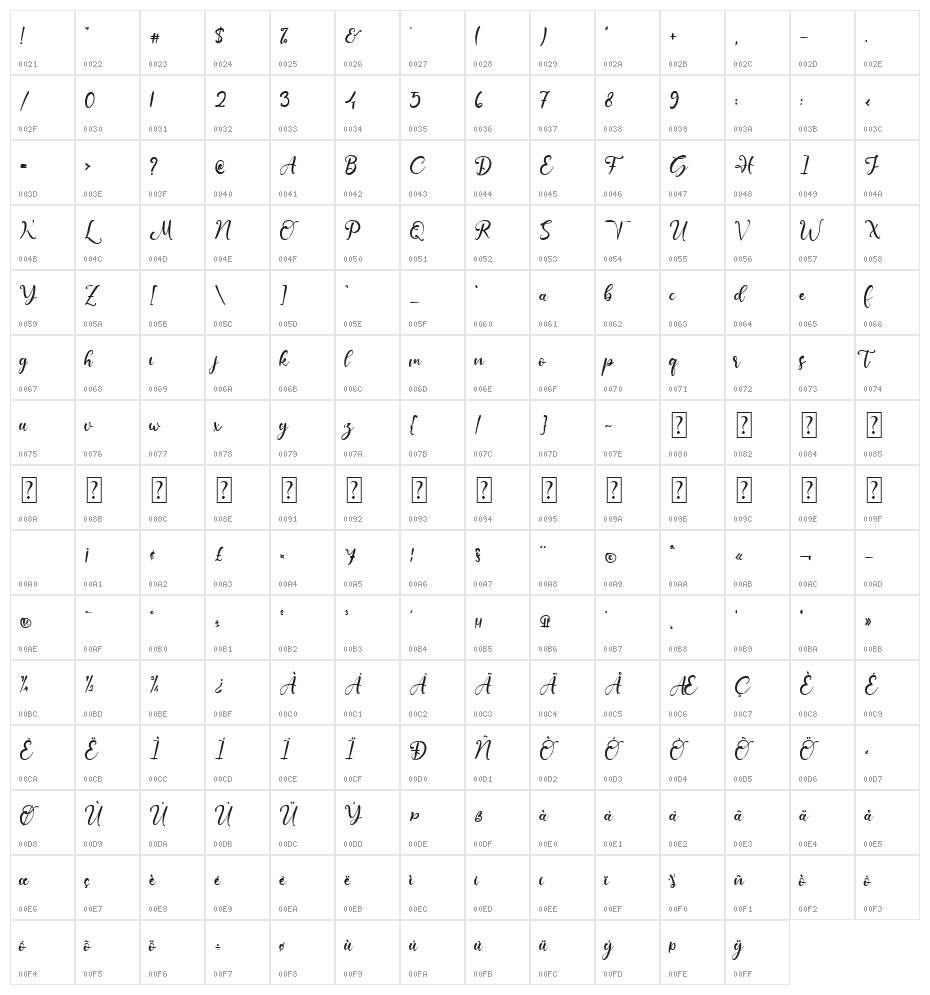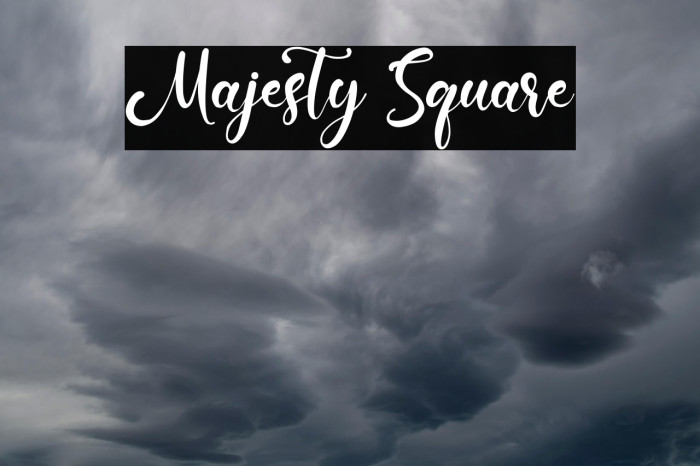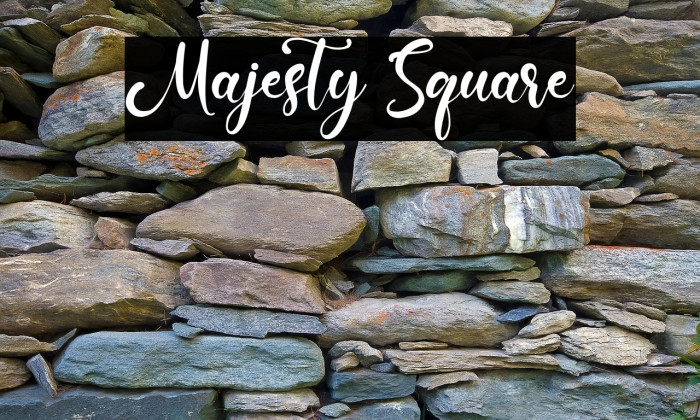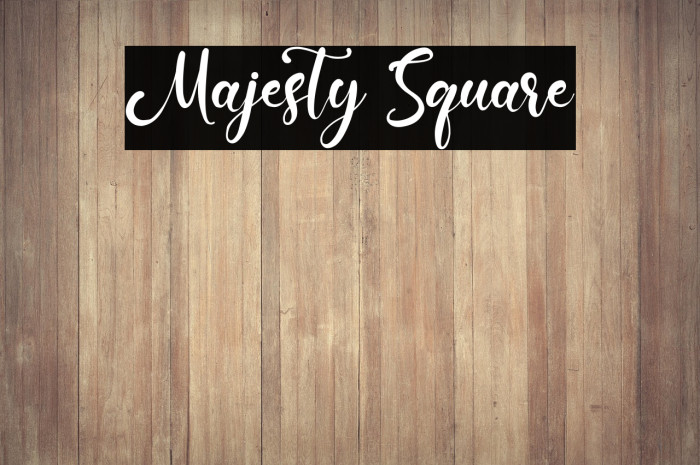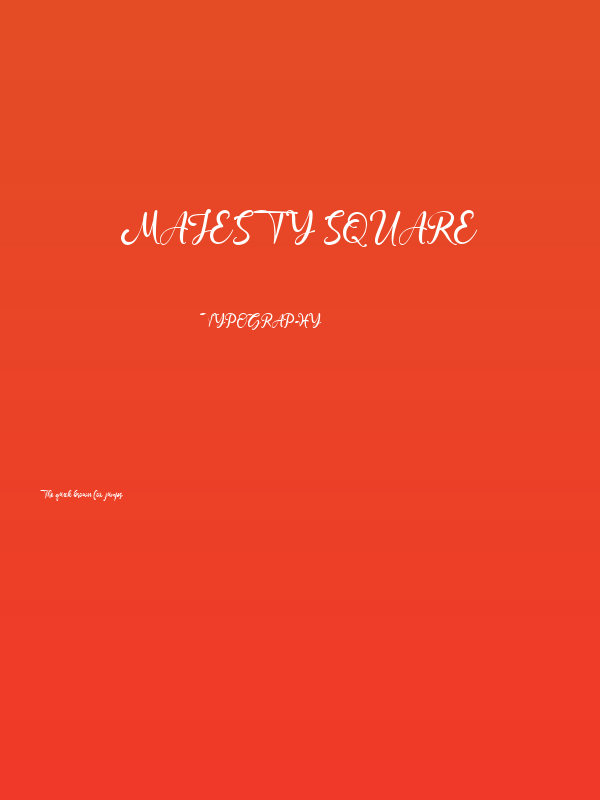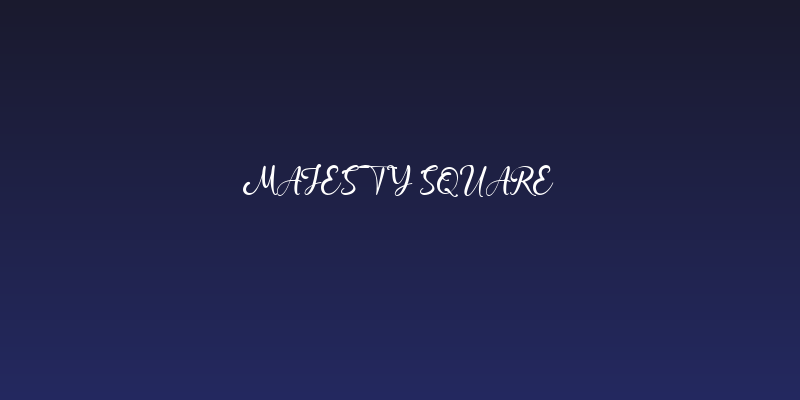
Majesty Square Font
Majesty Square Description
This elegant script font features a flowing, cursive style with a sophisticated flair. The uppercase letters are characterized by sweeping loops and flourishes, giving them a sense of movement and grace. The lowercase letters maintain a consistent style, with smooth, connected strokes that enhance readability while retaining an artistic touch. The numerals are designed to match the overall aesthetic, with subtle curves and a balanced appearance. Special characters are thoughtfully integrated, maintaining the font's cohesive look. This font is ideal for projects that require a touch of elegance and sophistication, such as wedding invitations, branding, and high-end product packaging.
| Overall Style | Elegant, Sophisticated |
| Use Case | Headlines, Invitations, Branding |
| Proposed Projects | Wedding invitations, luxury branding, product packaging, greeting cards. |